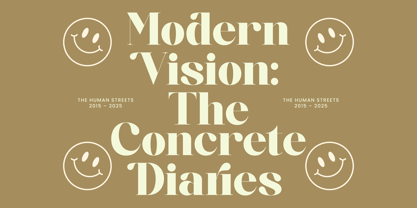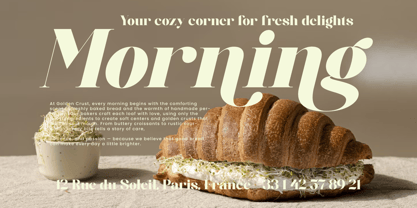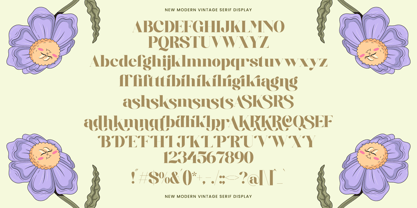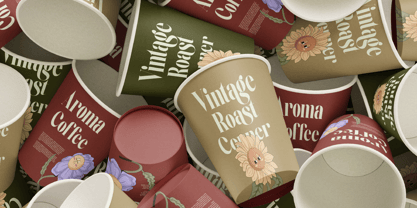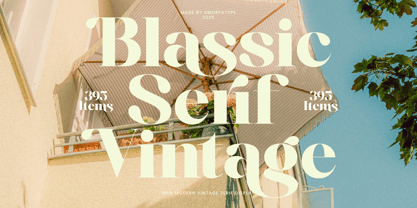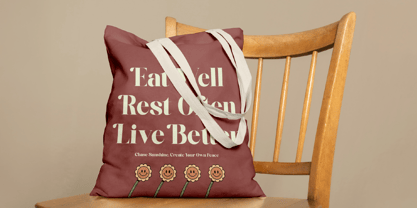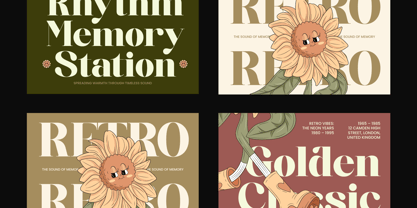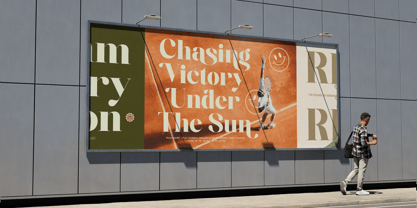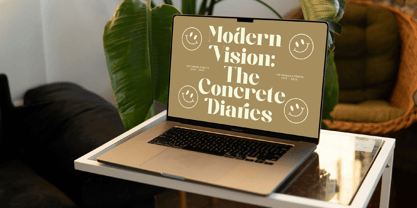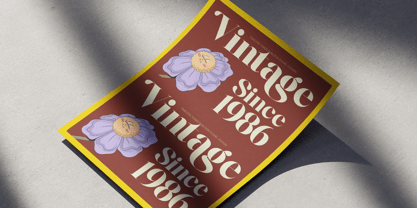
Blassic
by Amorfa Type
The Blassic Font Family was designed by Shiddiq Roihan and published by Amorfa Type. Blassic contains 2 styles and family package options.
Blassic is a refined modern vintage serif typeface that captures the essence of timeless elegance and classic sophistication. With its subtle vintage flair, smooth curves, and stylish contrasts, Blassic combines traditional charm with a contemporary edge — perfect for designers who appreciate both nostalgia and m​​​​​​​odern aesthetics. Blassic gives you full creative control to craft unique and expressive typography. Its well-balanced proportions and versatile design make it ideal for branding, packaging, editorial layouts, logos, invitations, and display headlines.